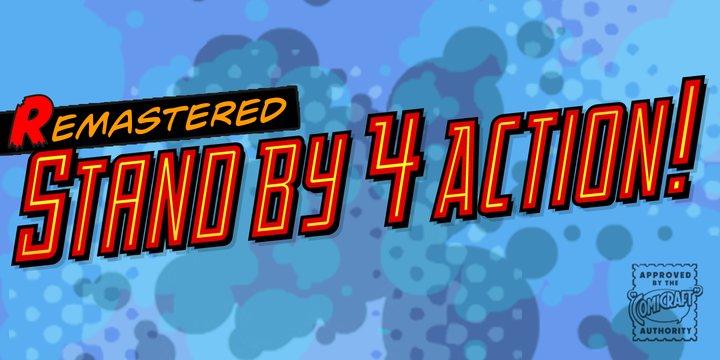
Stand By 4 Action is a comic font family. This typeface has six styles and was published by Comicraft.
Anything could happen in the next Half Hour! Inspired by the work of Gerry Anderson, this font graces the pages of Marvel’s AVENGERS and THUNDERBOLTS Each and Every Month!
- Designer: John Roshell